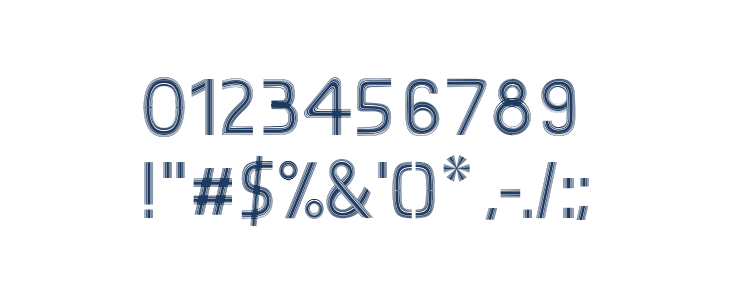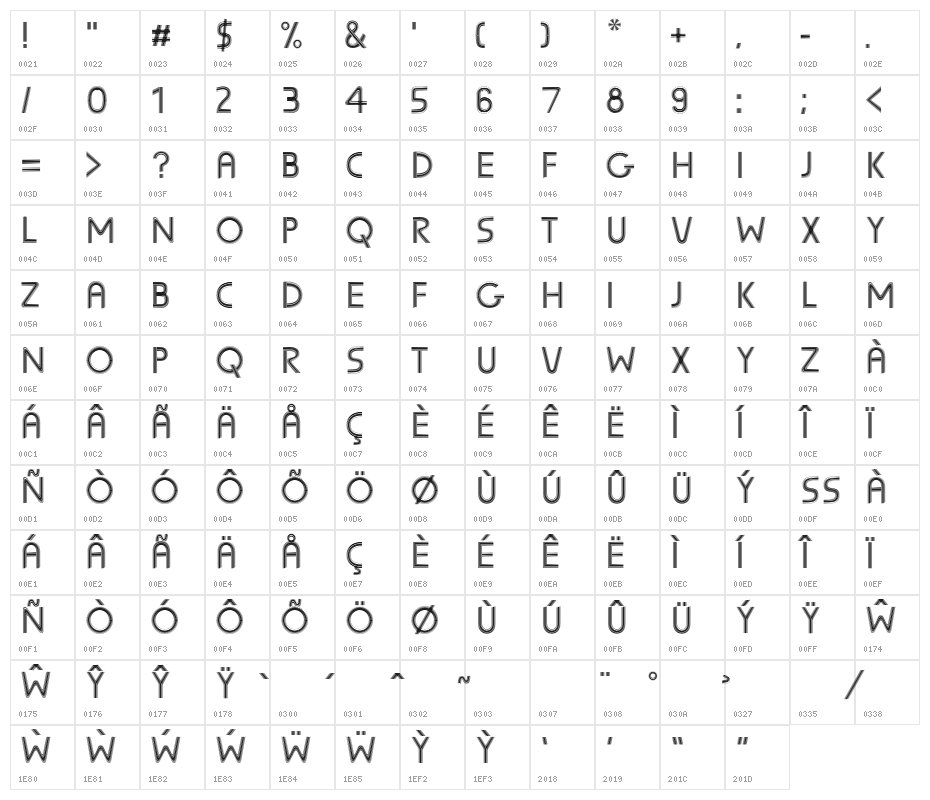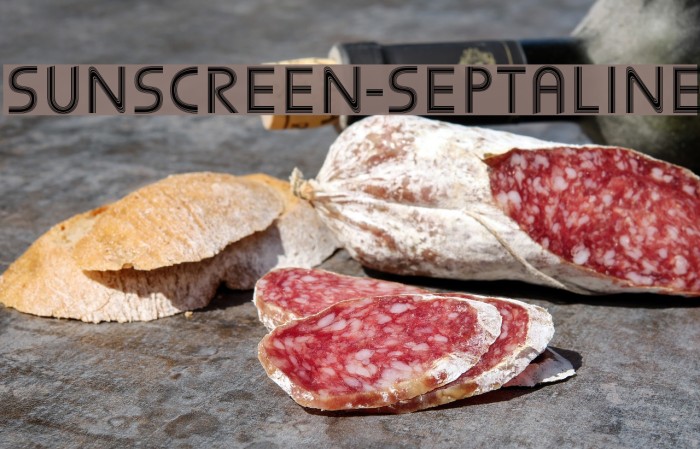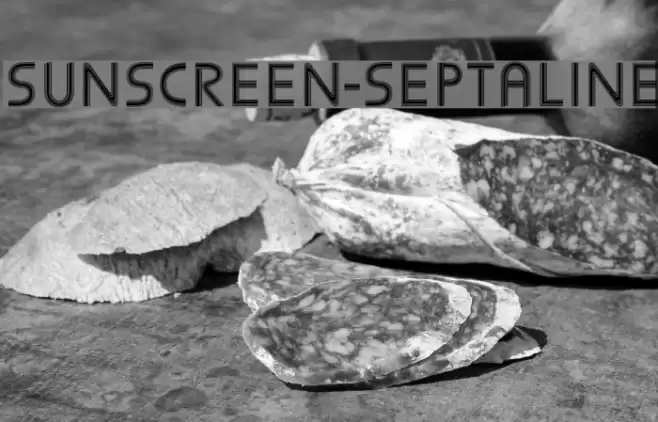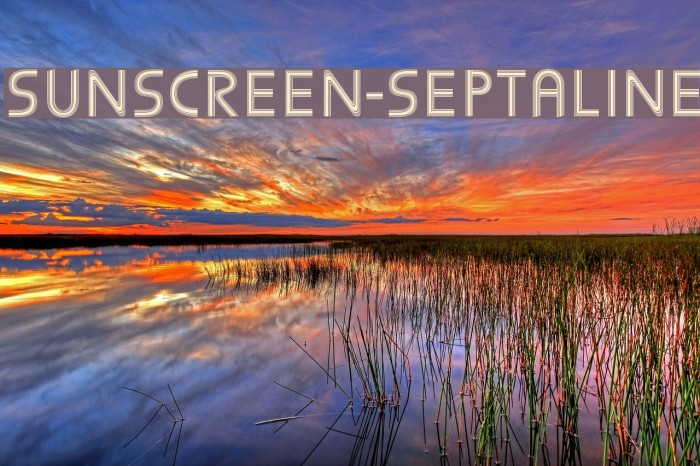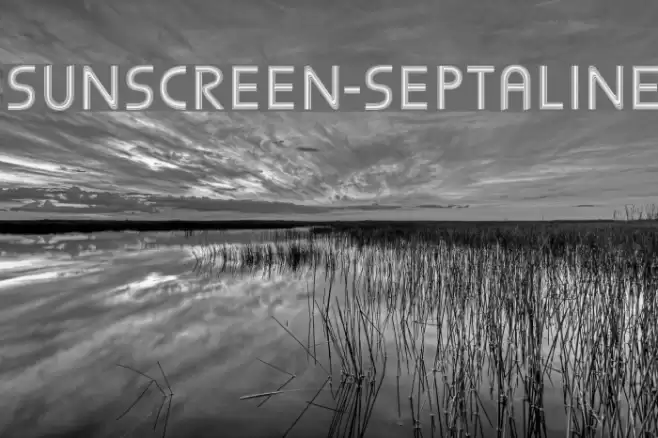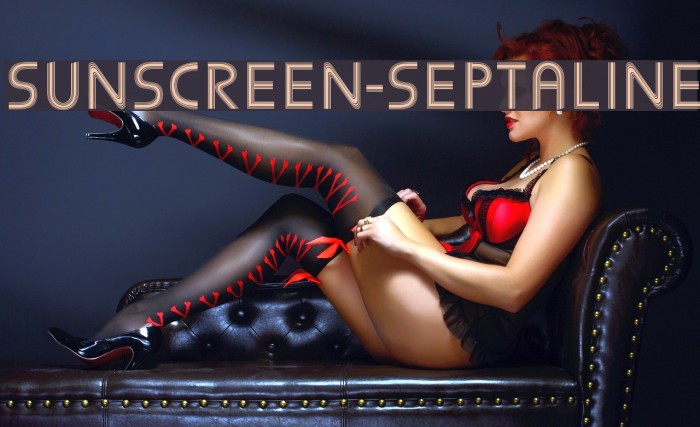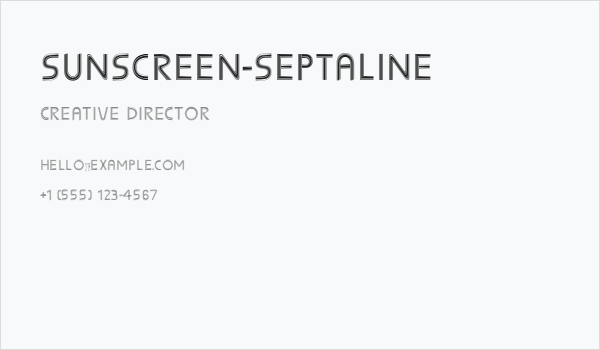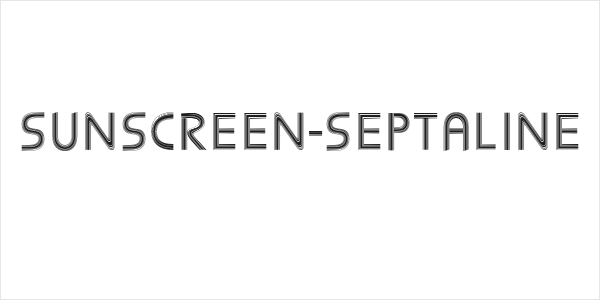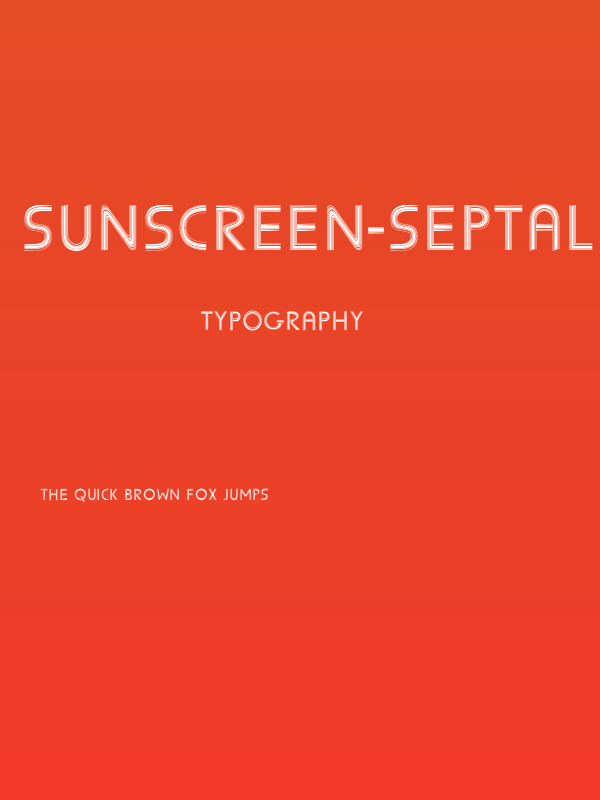
Sunscreen-Septaline Font
Sunscreen-Septaline Description
This font features a unique, decorative style with a modern twist. Each character is composed of multiple parallel lines, creating a layered and dimensional effect. The uppercase and lowercase letters maintain a consistent geometric form, while the numerals and special characters follow the same design principles. The font's structure is clean and precise, making it suitable for eye-catching designs. Its distinctive appearance is ideal for projects that require a bold and artistic touch.
| Proposed Projects | Ideal for branding, posters, album covers, and any project needing a bold, artistic flair. |